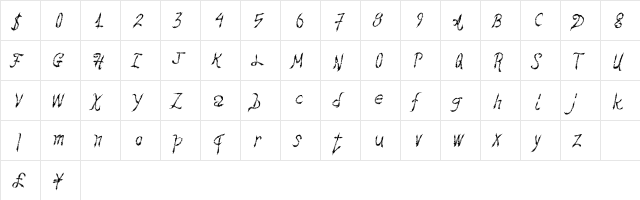
HawtFriend Regular
Design Context for HawtFriend Typeface
HawtFriend is a composed and adaptable typeface that performs quietly and consistently across a wide range of design contexts.